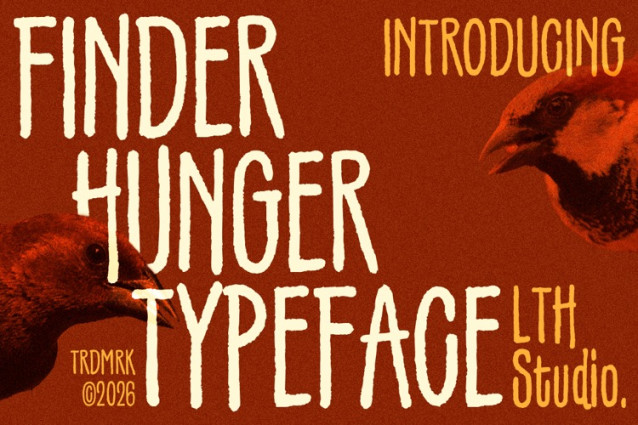
Finder Hunger Font
Finder Hunger is a tall handwritten display font with a natural, handcrafted feel and an easygoing personality. Its organic letterforms add warmth and character to posters, food branding, café menus, product packaging, and creative headlines, giving every design a relaxed yet eye-catching presence.